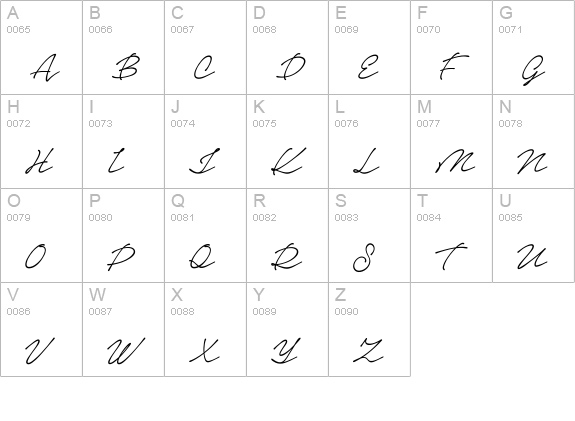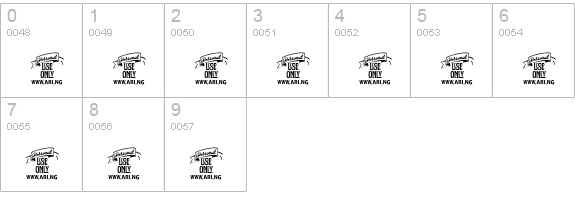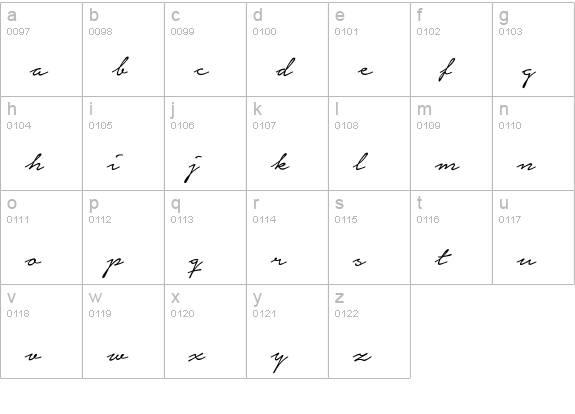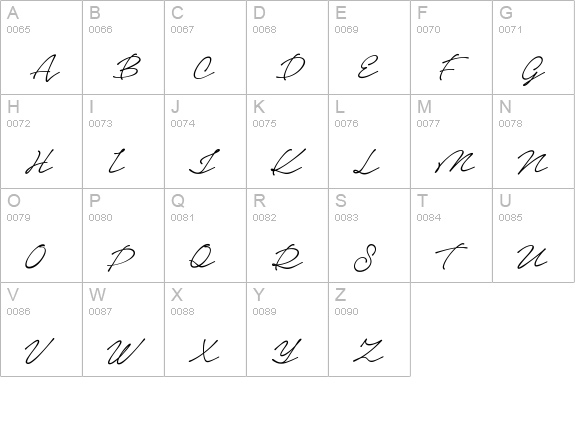
Notera Personal Use Only Font Details
Notera Personal Use Only font is a stunning and elegant typeface that is perfect for adding a touch of sophistication to any design project. This beautiful script font features delicate and flowing letterforms that effortlessly capture the essence of hand-lettering. With its refined curves and graceful strokes, Notera Personal Use Only font exudes a sense of elegance and style. Whether used for invitations, logos, branding, or any other creative endeavor, this font is sure to make a lasting impression. One of the best things about Notera Personal Use Only font is that it is free! That's right, this remarkable font is freely available to download at FontsMarket.com. This means that you can bring your designs to life without having to spend a penny. The versatility of Notera Personal Use Only font is another standout feature. It can be used in a variety of design projects, from wedding invitations to blog headers, from social media graphics to product packaging. The possibilities are endless! Notera Personal Use Only font is also incredibly easy to use. With its smooth curves and legible letterforms, it is a breeze to read and work with. Whether you're a professional designer or a beginner, this font will make your design process seamless and enjoyable. In addition to its beauty and versatility, Notera Personal Use Only font also offers a wide range of characters and ligatures. This allows you to customize your designs and create unique and personalized typography. Overall, Notera Personal Use Only font is a must-have for any designer or creative individual. Its elegance, versatility, and free availability make it an invaluable asset in your font library. So why wait? Go ahead and download Notera Personal Use Only font from FontsMarket.com and let your creativity soar!